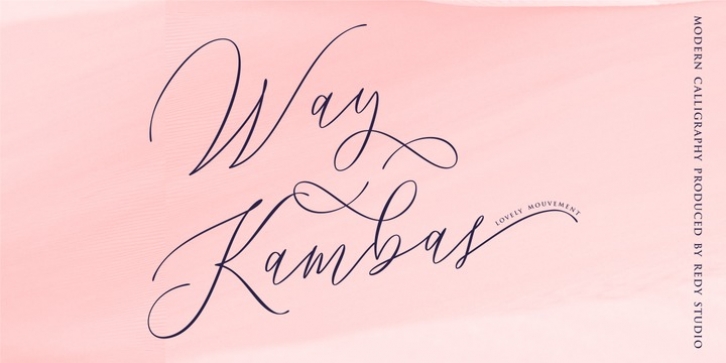
Publisher: Redy Studio
Way Kambas is a modern calligraphy font with thin strokes and beautiful movements. Way Kambas provides beautiful letter essence for any design project including wedding invitations, cards, quotes, etc.